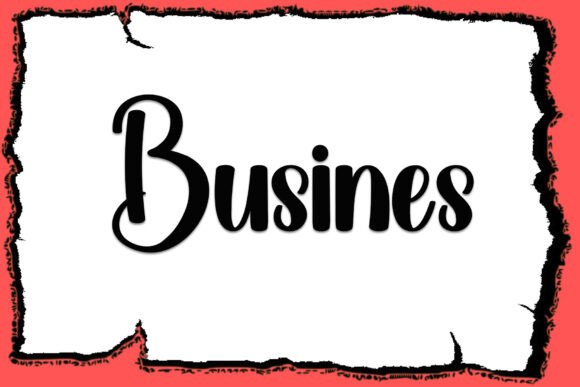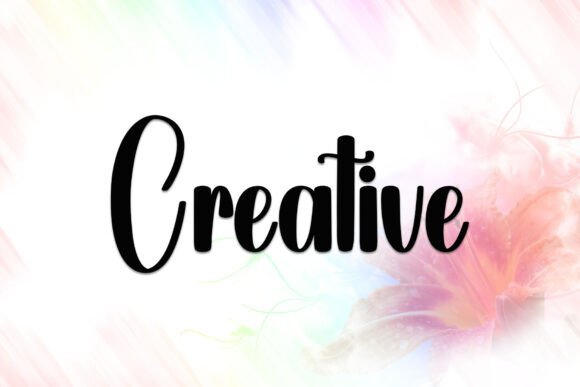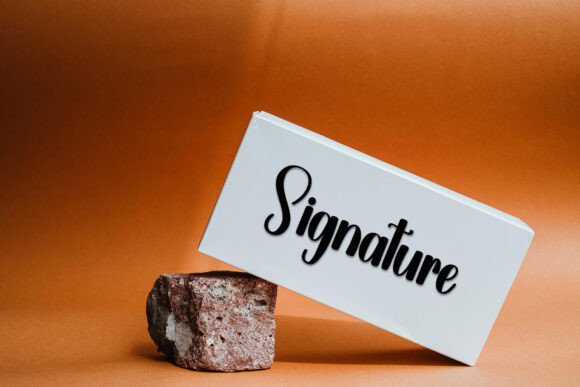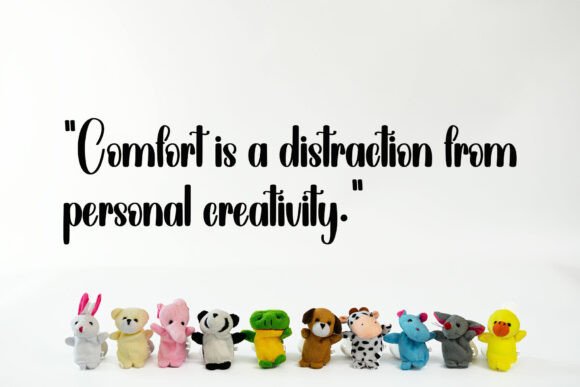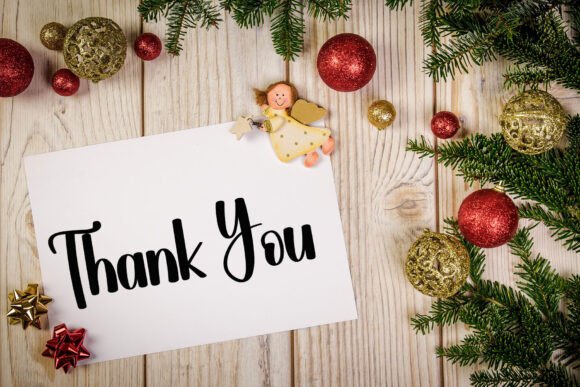
Baby Sweety Font: Elevate Your Designs with Elegance and Class
In the world of typography, fonts play a crucial role in conveying the tone and personality of a design. For designers and crafters looking to add a touch of sophistication and elegance to their projects, the Baby Sweety Font is an excellent choice. This trendy handwritten font is inspired by timeless classic calligraphy, making it perfect for those seeking a contemporary yet classic look.
What is Baby Sweety Font?
Baby Sweety Font is a modern, handwritten typeface that exudes a sense of elegance and refinement. Its impeccable form and classic calligraphy inspiration make it an ideal choice for designers looking to add a touch of sophistication to their work. Whether you’re creating wedding invitations, branding materials, or digital content, Baby Sweety Font is sure to impress.
Key Features of Baby Sweety Font
- Trendy and Contemporary: Baby Sweety Font boasts a modern, fresh look that’s perfect for designers seeking a current and stylish typeface.
- Handwritten with Flair: This font’s handwritten style adds a personal touch to any design, making it ideal for projects that require a human and approachable feel.
- Inspired by Classic Calligraphy: Baby Sweety Font’s roots in timeless classic calligraphy give it an air of sophistication and elegance, making it perfect for high-end designs.
- Impeccable Form: The font’s precise and clean lines ensure that it remains legible and visually appealing, even at smaller sizes.
Use Cases for Baby Sweety Font
Baby Sweety Font’s versatility makes it suitable for a wide range of design projects, including:
- Wedding Invitations and Stationery: Add a touch of elegance and romance to your wedding designs with Baby Sweety Font.
- Branding and Packaging: Use Baby Sweety Font to create sophisticated and memorable brand identities.
- Digital Content: Elevate your blog posts, social media graphics, and email newsletters with Baby Sweety Font’s modern and refined look.
- Crafting and Scrapbooking: Add a personal touch to your handmade crafts and scrapbook pages with Baby Sweety Font.
Tips for Using Baby Sweety Font
To get the most out of Baby Sweety Font, consider the following tips:
- Pair with Neutral Backgrounds: Baby Sweety Font shines on neutral backgrounds, allowing its elegant lines to take center stage.
- Experiment with Colors: Try pairing Baby Sweety Font with pastel shades or rich jewel tones to add depth and contrast to your designs.
- Use for Headings and Titles: Baby Sweety Font’s stylish and refined look makes it perfect for headings and titles, adding visual interest to your designs.
Baby Sweety Font is a versatile and elegant typeface that’s perfect for designers and crafters seeking to add a touch of sophistication to their projects. With its trendy yet classic look, impeccable form, and handwritten flair, Baby Sweety Font is sure to become a go-to choice for a wide range of design applications. Whether you’re creating wedding invitations, branding materials, or digital content, Baby Sweety Font is an excellent choice for elevating your designs with elegance and class.